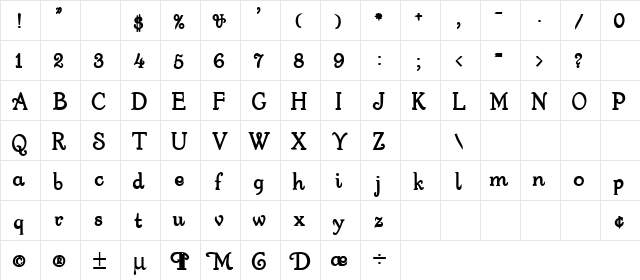
Garton FatA
Design Context for Garton Typeface
Garton is a composed and adaptable typeface that performs quietly and consistently across a wide range of design contexts.